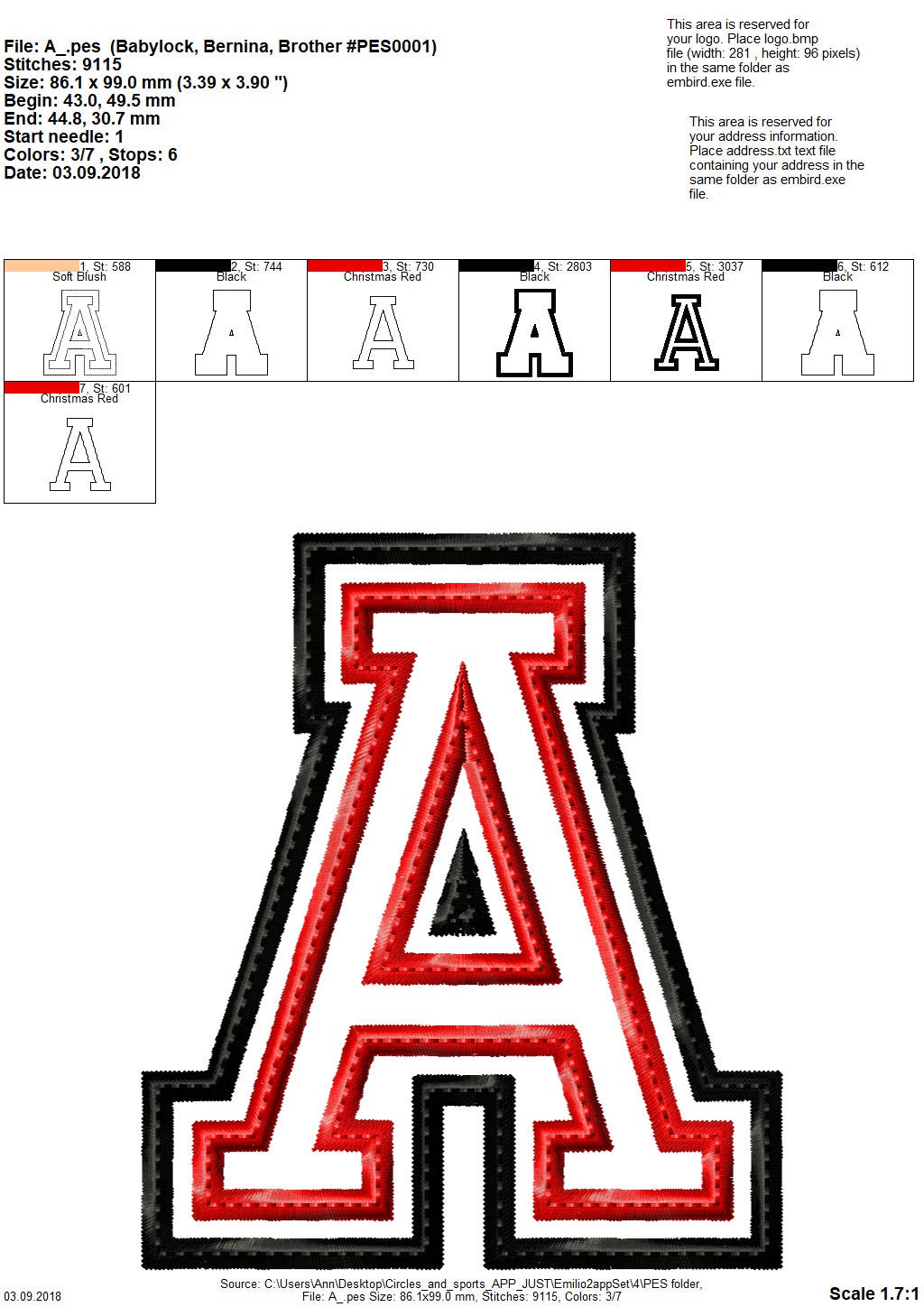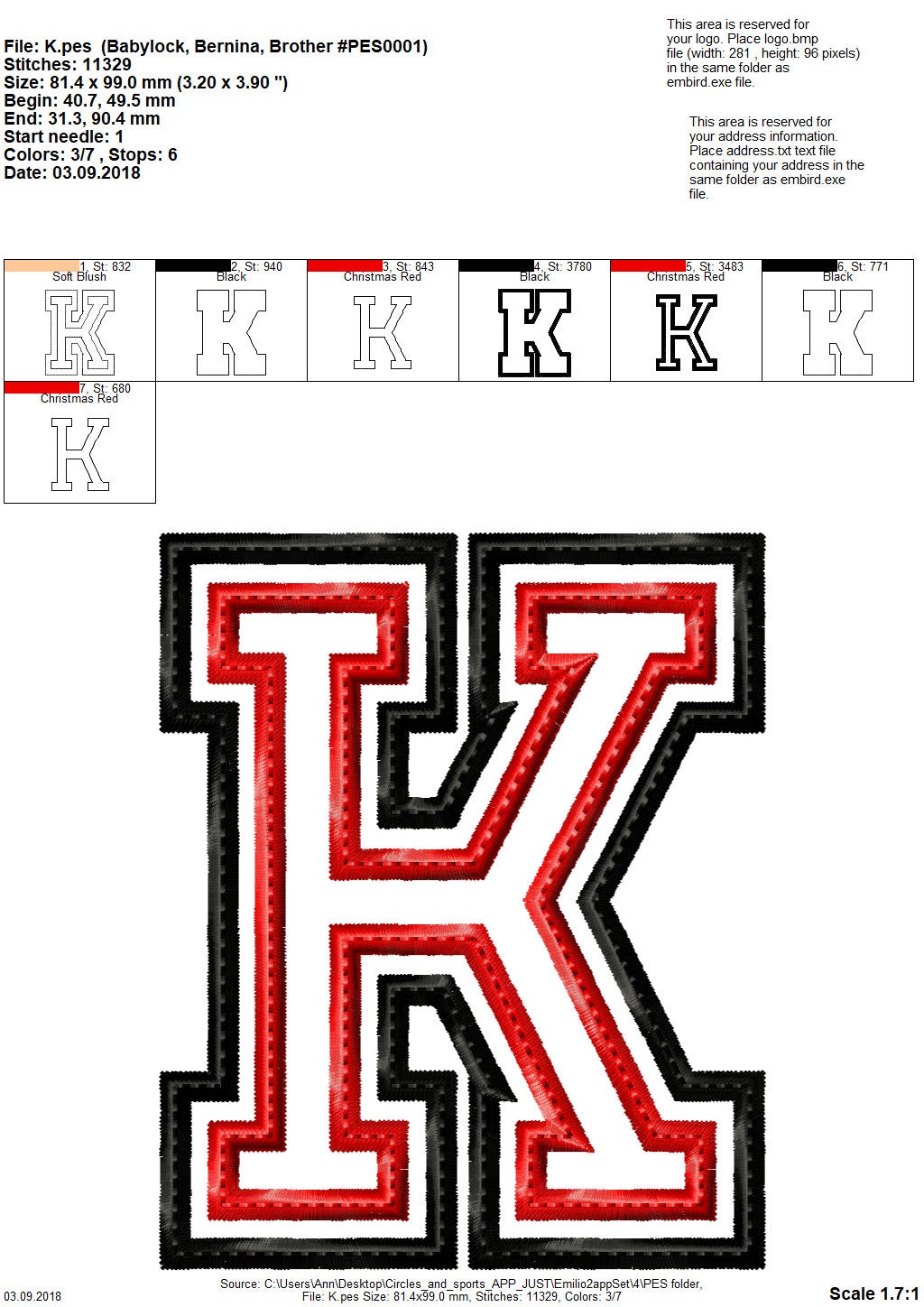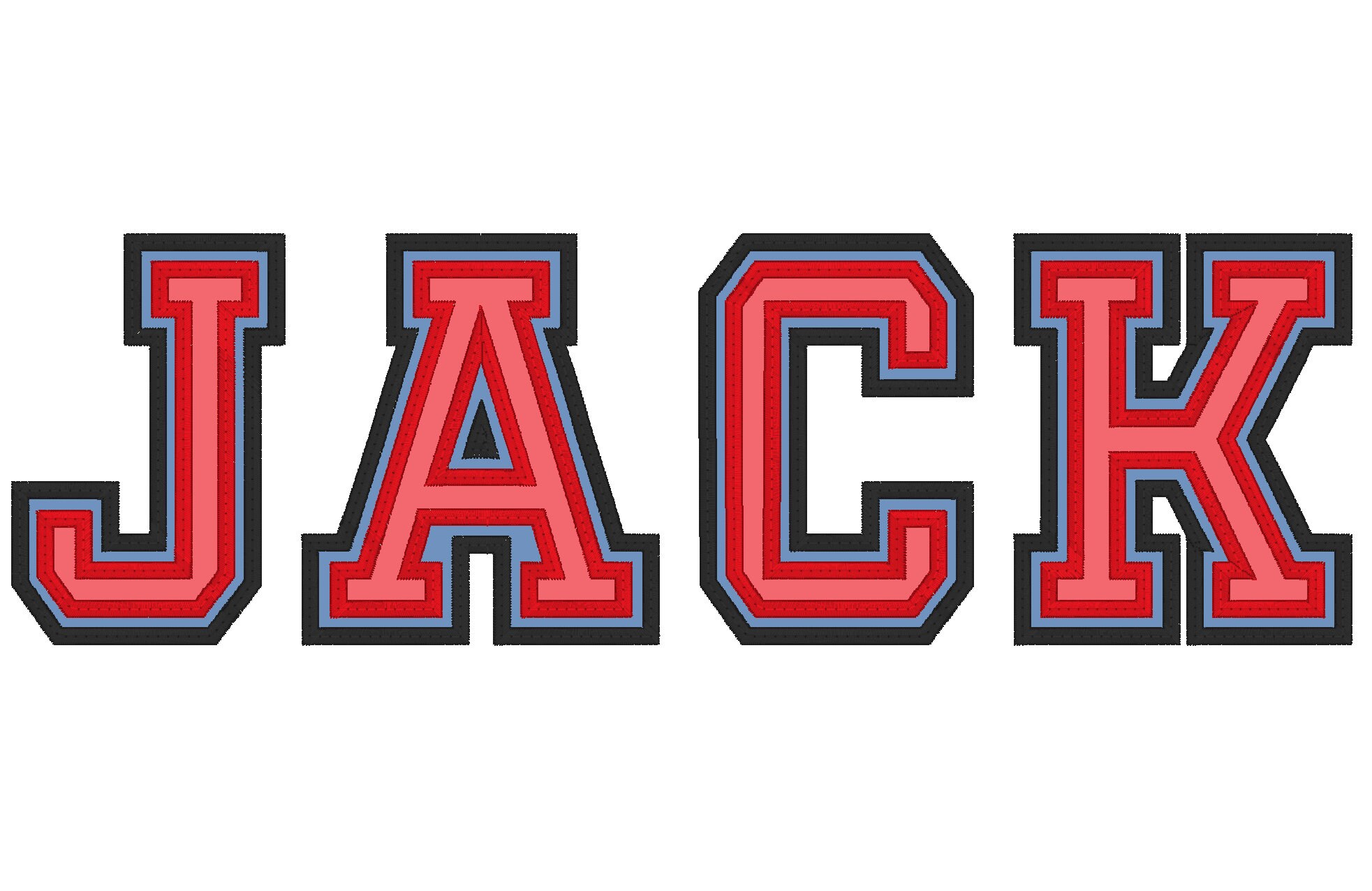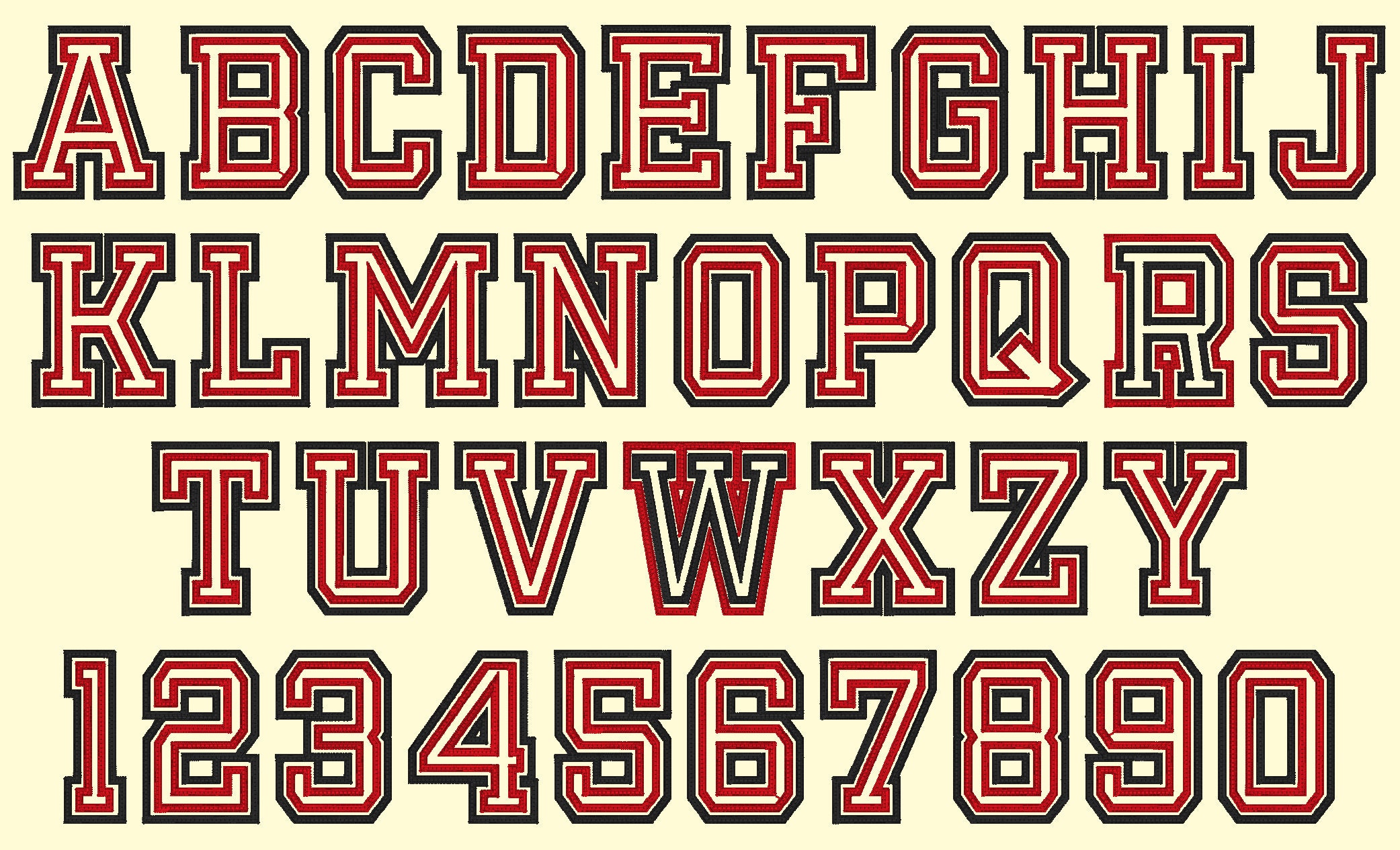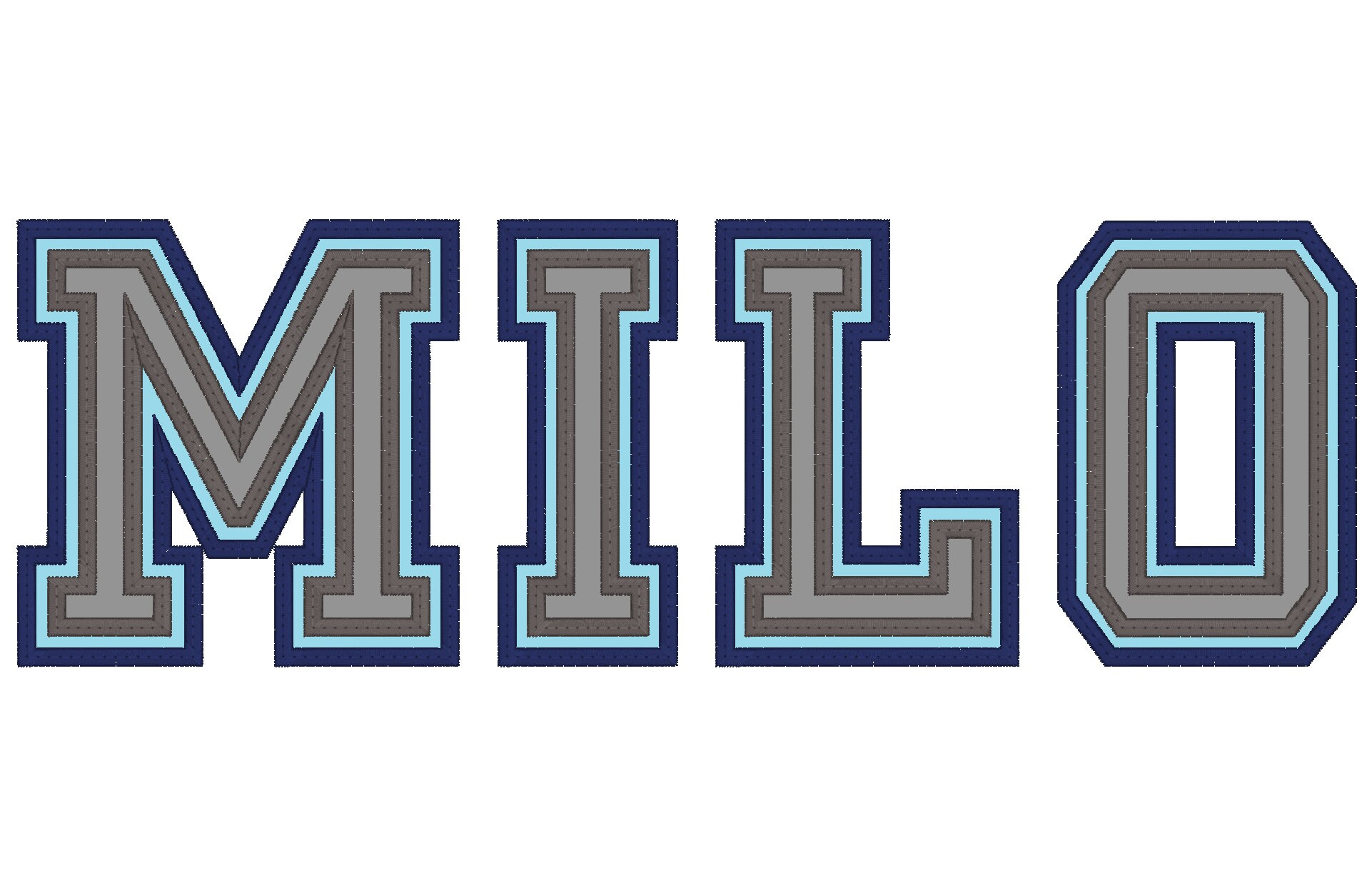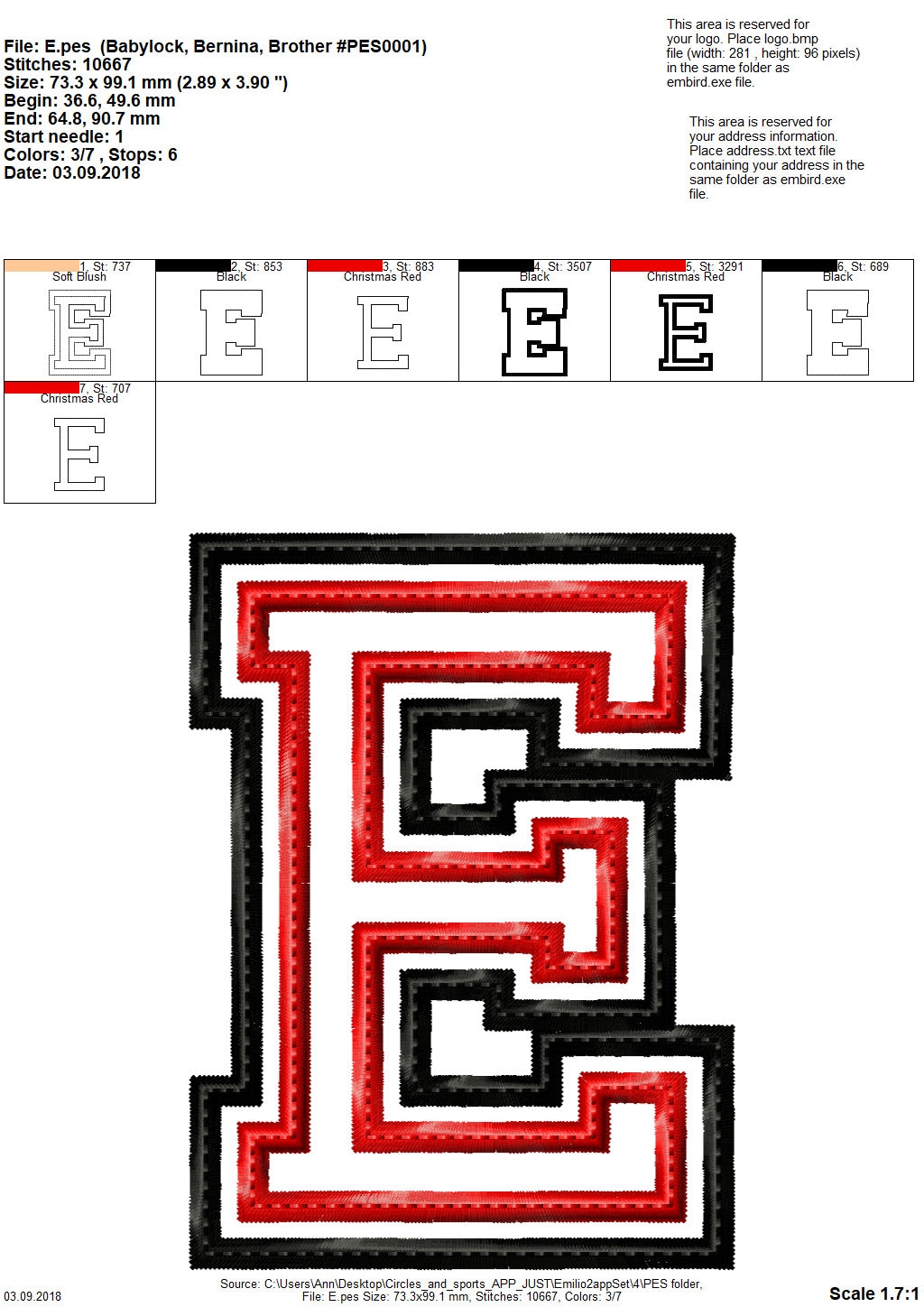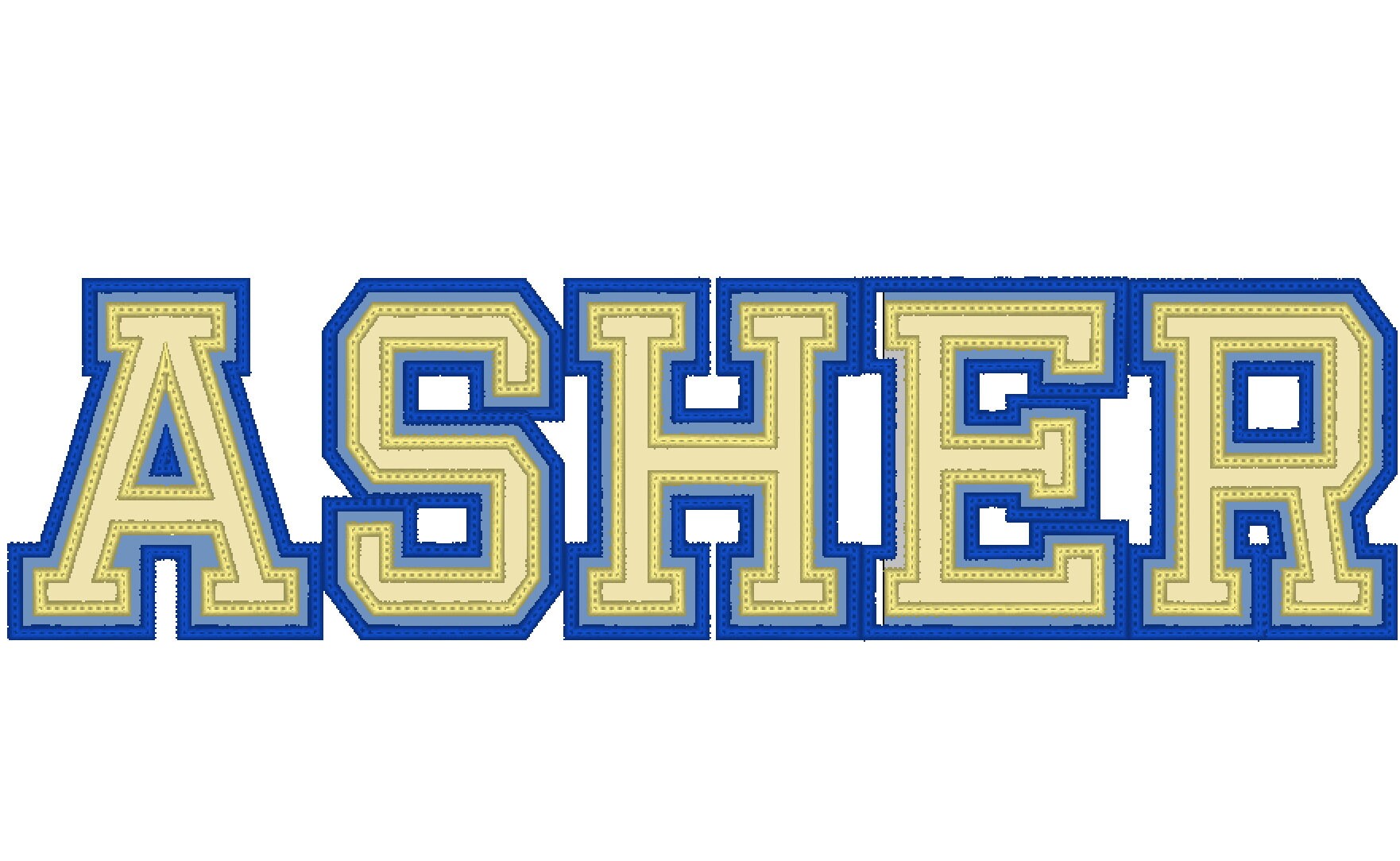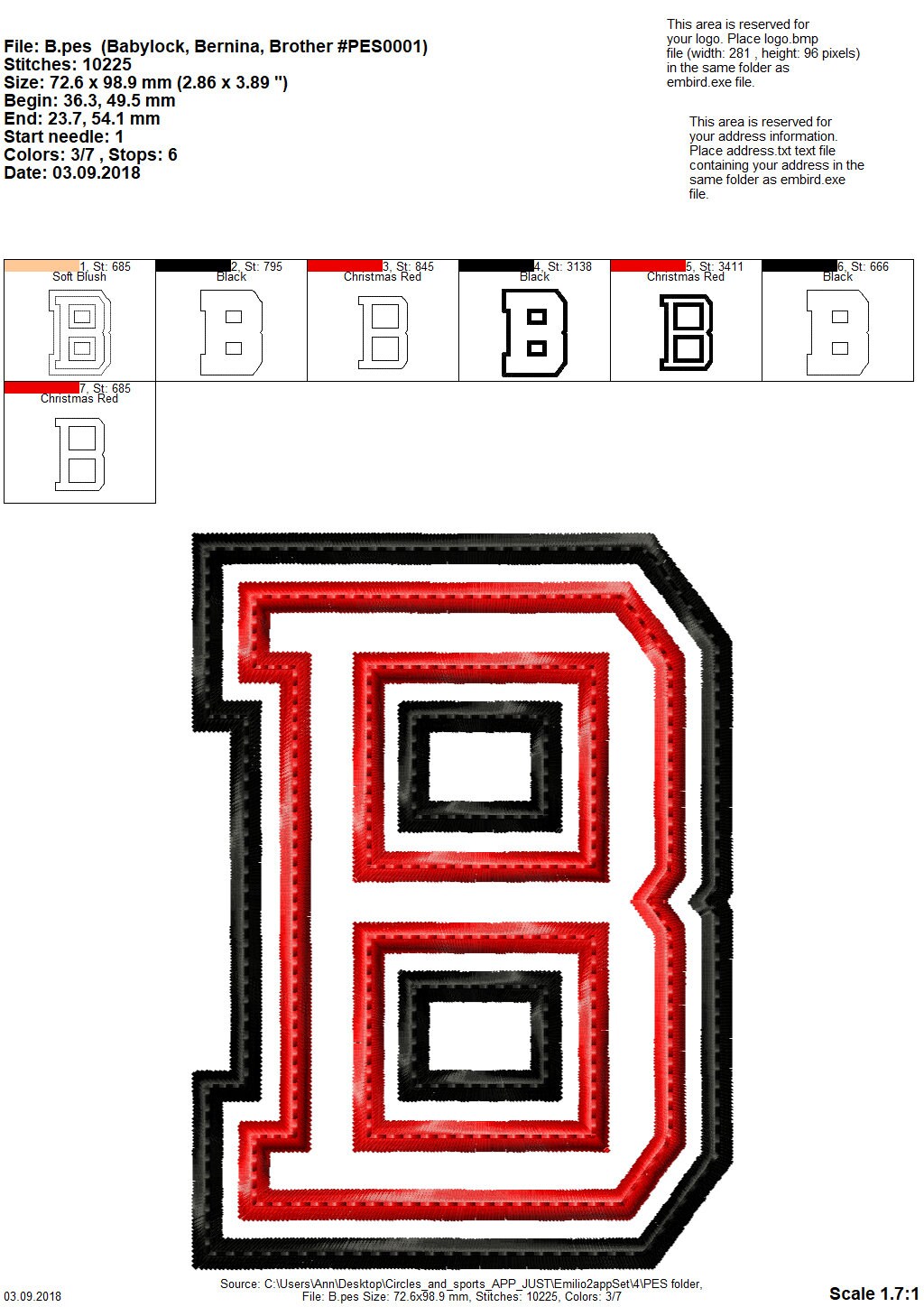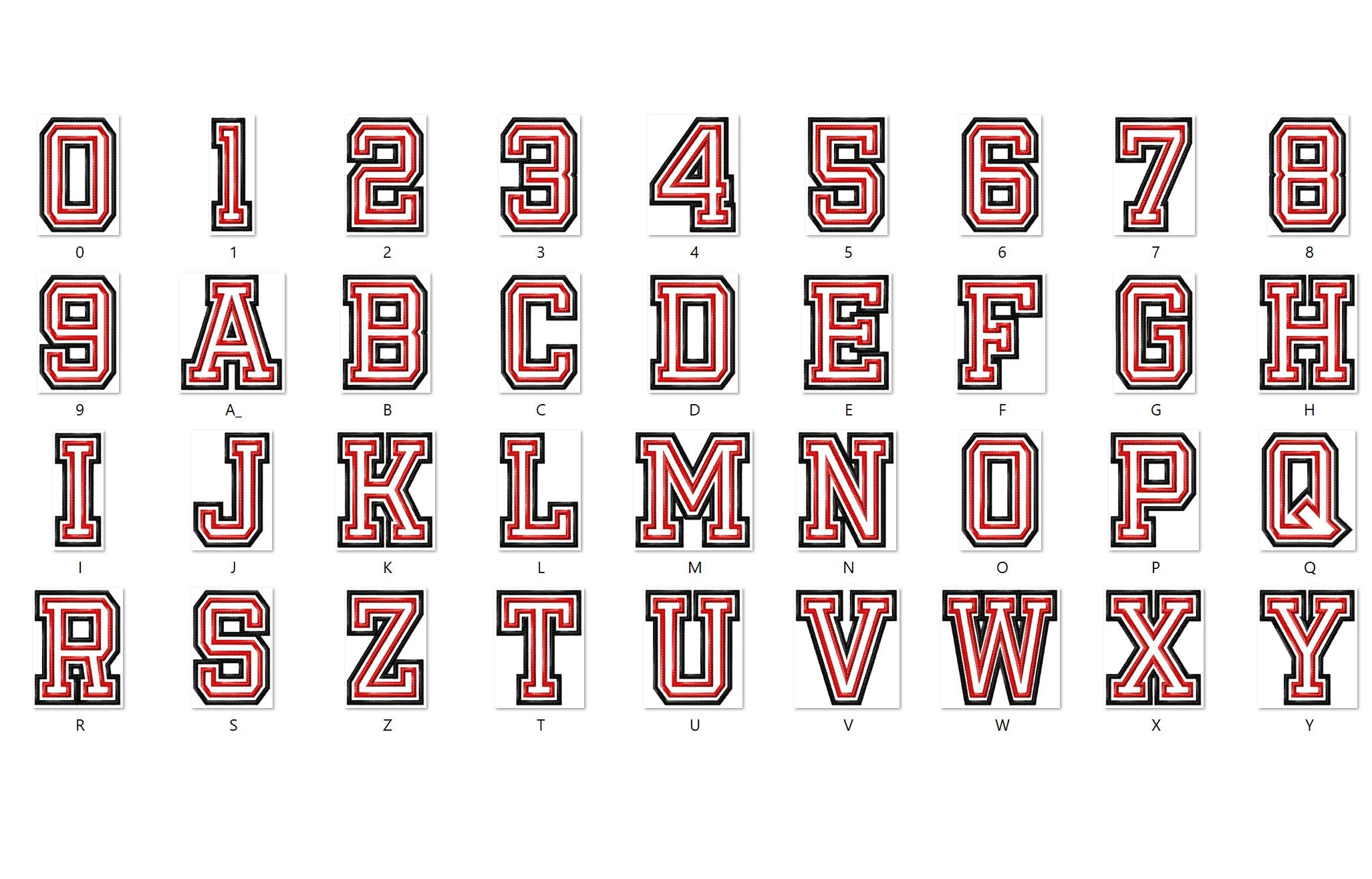
Sport two layer Appliqué Block Font Double outline and top stitch Alphabet Monogram machine embroidery designs sizes 2.5 up to 6 inch BX
* Two applique layers
* Double outline sport font
Has a nice wide satin stitch and triple stitch on top for a neat look. Can be skipped!
Great stitch out. Lots of stitches though.
Stitched out really good. Love the design.
Some of the letters were not sequenced correctly by color and the letter D's stitch out is completely off as some of the outline stitches are combined with the satin stitches. I messaged the shop on 1/14 to let them know about the issues I found and have still not received a response or an update for the inaccurate files. I was able to fix the issues in my own embroidery software to be able to use the fonts, but this will not be the case of someone does not have software.
Stitched out great, looks perfect.
Stitches beautifully, very neat design. Doesn't tolerate scaling in Embrilliance very well